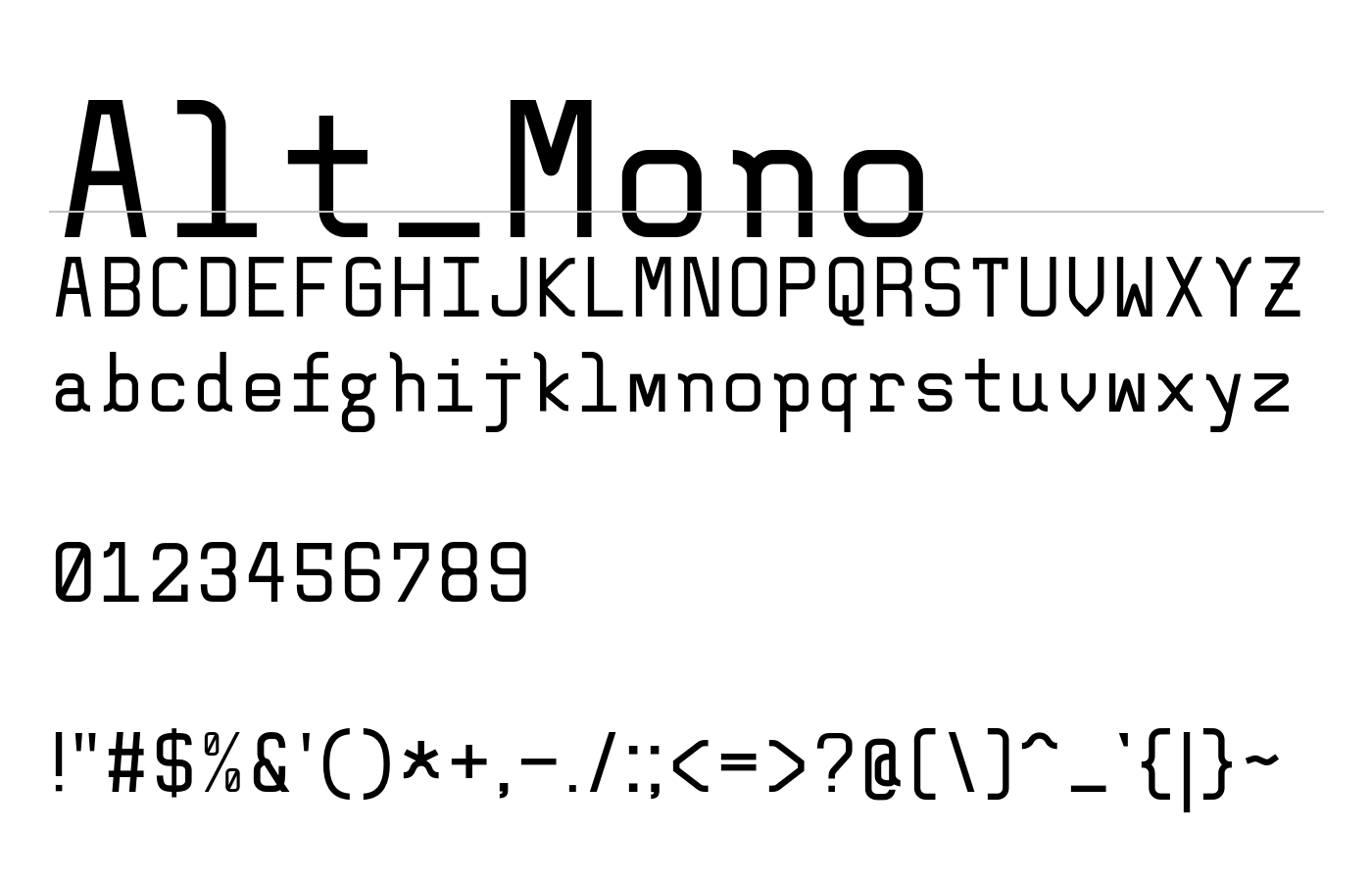
Alt_Mono is a modern, monospaced sans serif font with a clean and technical appearance. Its narrow width, uniform stroke weight, and subtle geometric shapes make it ideal for coding, technical documents, and digital interfaces, offering clarity and a contemporary style that feels both functional and sleek. This font works well in contexts that require precise alignment and readability, such as programming environments and minimalist branding.
Alt_Mono Font
About Alt_Mono Font
| Font family | Alt_Mono Font |
| Designer | Revaldo A.M |